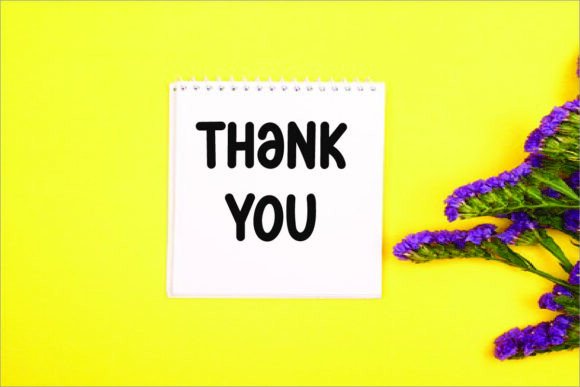
Introducing Beardson Font: The Ultimate Festive Typeface for Holiday Projects
The holiday season is upon us, and with it comes the need for designers and crafters to create festive and engaging content. If you’re looking for a font that captures the essence of Christmas, look no further than Beardson Font. This delightful typeface is specifically designed to add a touch of holiday cheer to your projects, making it perfect for a wide range of applications.
What is Beardson Font?
Beardson Font is a festive typeface that embodies the spirit of the holiday season. With its playful and charming design, this font is sure to bring joy and warmth to your text. Whether you’re designing greeting cards, banners, social media graphics, or marketing materials, Beardson Font is the perfect choice to add a dash of Christmas magic to your creations.
Key Features of Beardson Font
• Festive Design: Beardson Font boasts a unique and festive design that instantly evokes the feeling of Christmas. Its playful and charming appearance makes it perfect for holiday-themed projects.
• Versatile: This font is incredibly versatile and can be used for a wide range of applications, including greeting cards, banners, social media graphics, marketing materials, and more.
• High-Quality: This font is designed with high-quality and clarity in mind, ensuring that your text looks crisp and professional.
Beardson Font is specifically designed for holiday projects, making it the perfect choice for designers and crafters who want to create festive and engaging content. Here are some ideas for projects that Beardson Font would be perfect for:
• Greeting Cards: Add a touch of Christmas charm to your holiday greeting cards with Beardson Font.
• Banners: Create eye-catching banners for your website, social media, or marketing materials with this festive font.
• Social Media Graphics: Add some holiday cheer to your social media graphics, such as Facebook posts, Twitter headers, and Instagram stories.
• Marketing Materials: Use Beardson Font to create festive and engaging marketing materials, such as flyers, brochures, and posters.
Tips for Using Beardson Font
Here are some tips for getting the most out of Beardson Font:
• Experiment with Colors: Try pairing Beardson Font with different colors to create a unique and festive look.
• Mix and Match: Combine Beardson Font with other fonts to create a unique and eye-catching design.
• Use it Sparingly: Use Beardson Font sparingly to create emphasis and add a touch of holiday cheer to your text.
Font Name Beardson Font
Author AA studio
Beardson Font is a fantastic addition to any designer’s or crafter’s toolkit. Its festive and charming design makes it perfect for holiday projects, and its versatility and ease of use make it accessible to creators of all skill levels. Whether you’re designing greeting cards, banners, social media graphics, or marketing materials, Beardson Font is sure to bring a touch of Christmas magic to your creations.